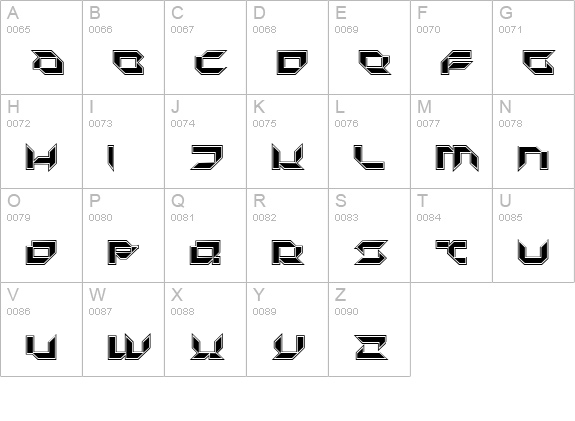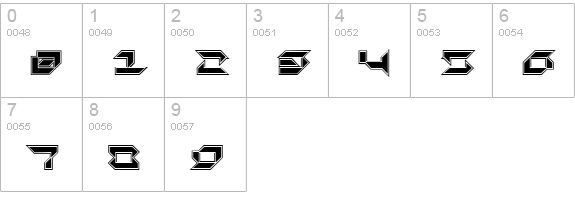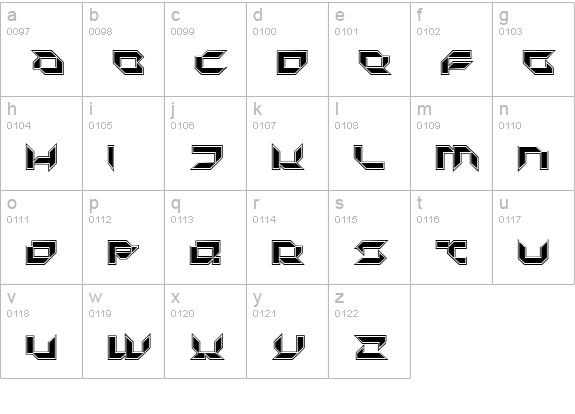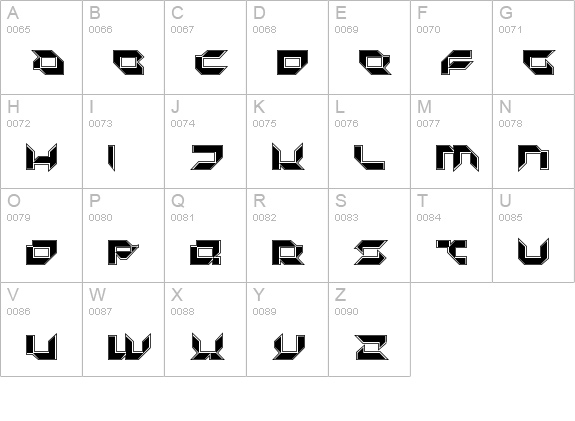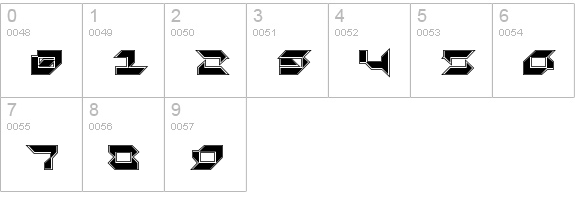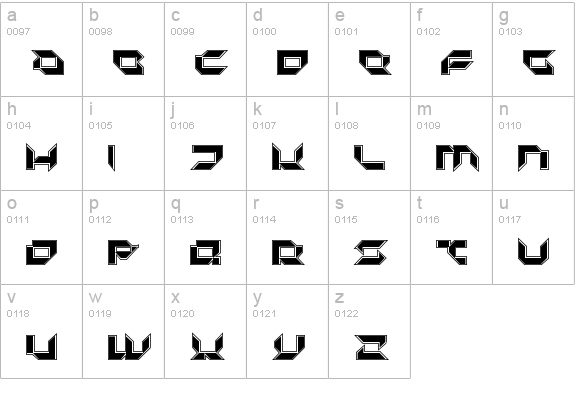
Pluranon Pro Font Details
Pluranon Pro is a versatile and modern font that exudes sophistication and elegance. With its clean lines and sleek design, this typeface is perfect for a wide range of projects, from branding to editorial design. Its bold yet graceful appearance makes it stand out and commands attention in any application. This font is available in a variety of weights and styles, allowing for endless creative possibilities. Whether you are designing a logo, creating a poster, or working on a website, Pluranon Pro has got you covered with its versatility and style. The best part? Pluranon Pro is completely free to download at FontsMarket.com. Take advantage of this opportunity to enhance your design projects with this exquisite font that will elevate your work to the next level. Download Pluranon Pro today and experience the power of sleek and modern typography at your fingertips.